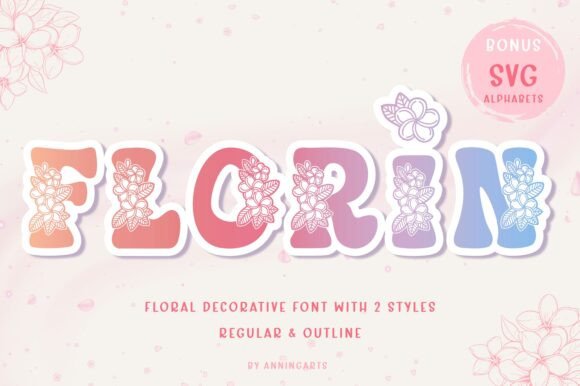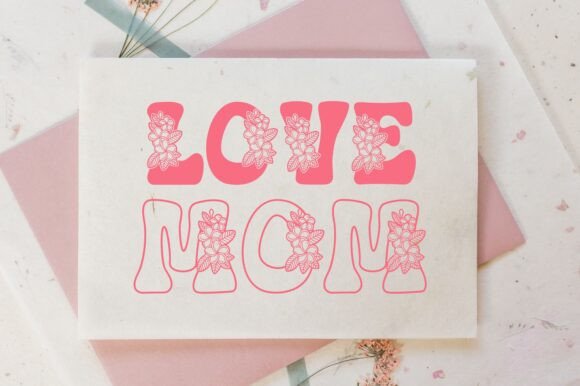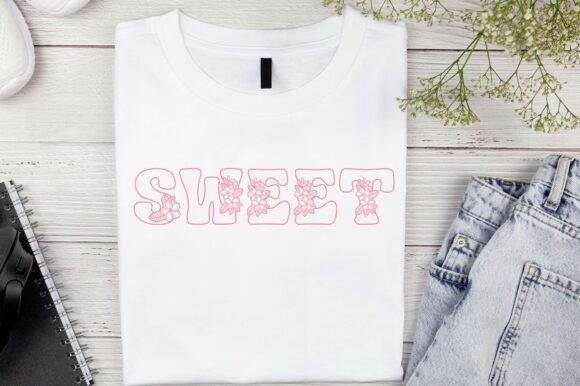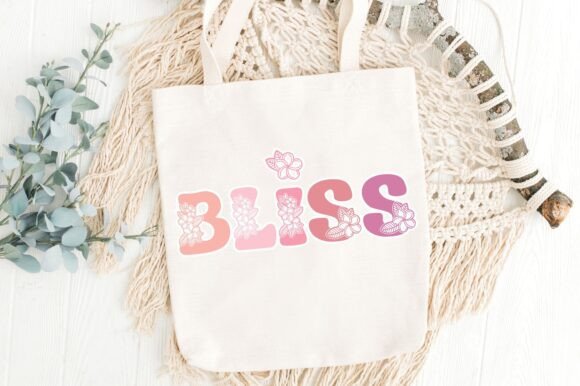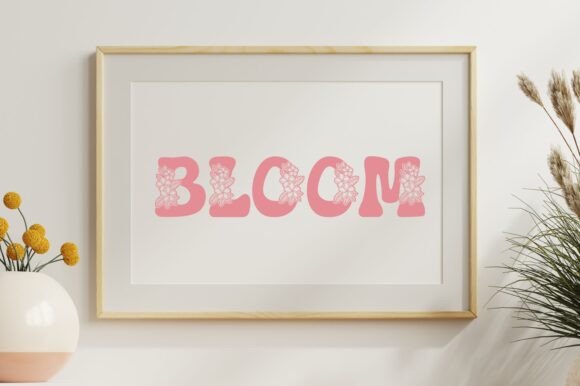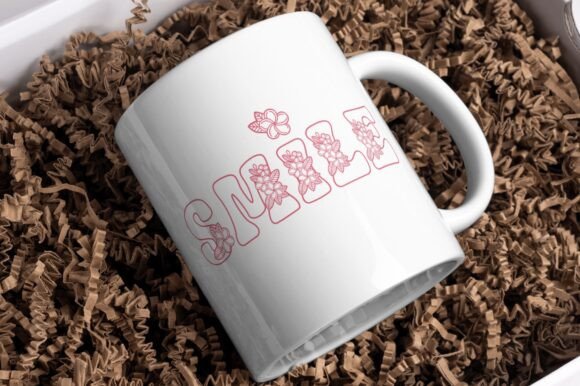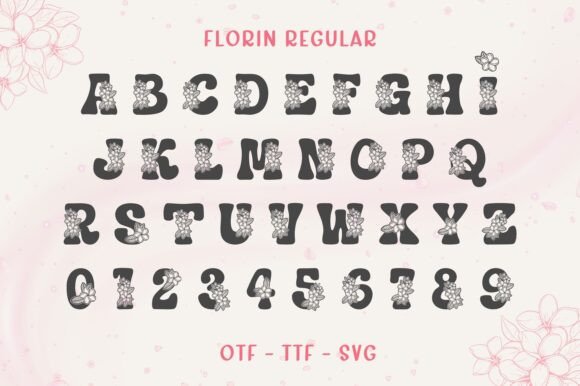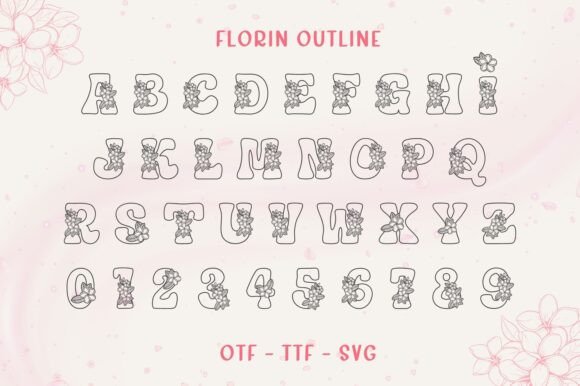
Florin Font
Florin is a playful, floral decorative font that comes in both regular and outline styles. With its colorful gradient styling and embedded flower illustrations, Florin is perfect for eye-catching headers, children’s projects, seasonal greeting cards, and branding with a youthful twist.